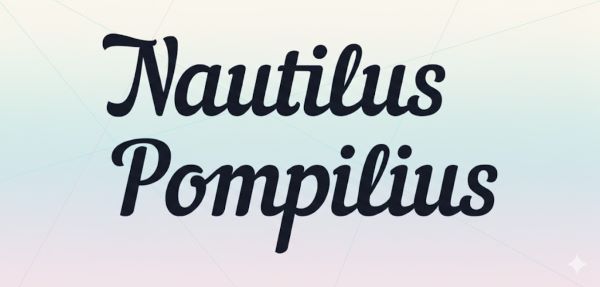
Nautilus Pompilius Font
Nautilus Pompilius Font is a decorative display typeface inspired by the visual identity associated with the Nautilus Pompilius music band. It features distinctive letterforms that reflect artistic and musical expression. Suitable for posters, album artwork, branding, and themed designs, it delivers strong cultural character and stands out as a creative and expressive option within unique free fonts collections.
➤ Font Name: Nautilus Pompilius
➤ Designer: PUNK YOU BRANDS
➤ Style: Script